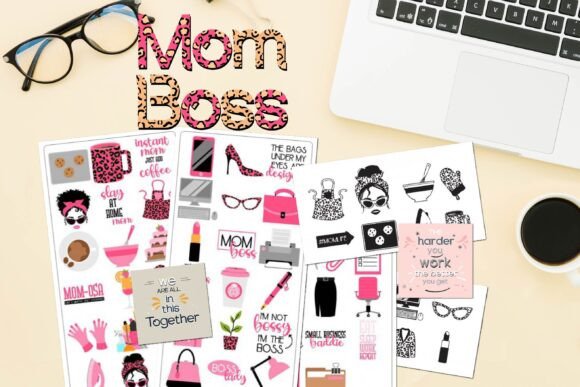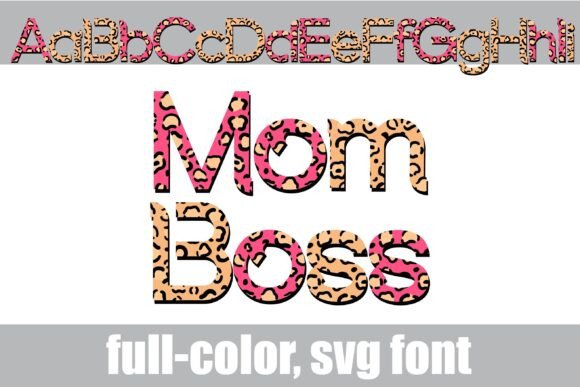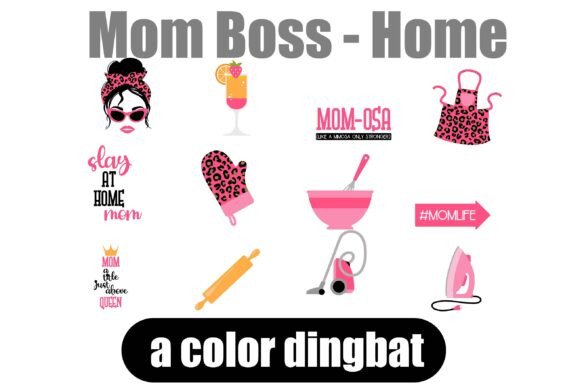
Experience the unique personality of Mom Boss Font, a font designed for impact. Mom Boss! This font bundle features a minimal-style mom, leopard print, and all the imagery that shows you who is boss (mom!) This bundle features 1 full-color font, with an alt case of additional colors of each letter that you can access through your system or Silhouette’s glyph map, 2 full-color dingbats, 2 regular dingbats, and 1 regular sans serif font in regular and bold.